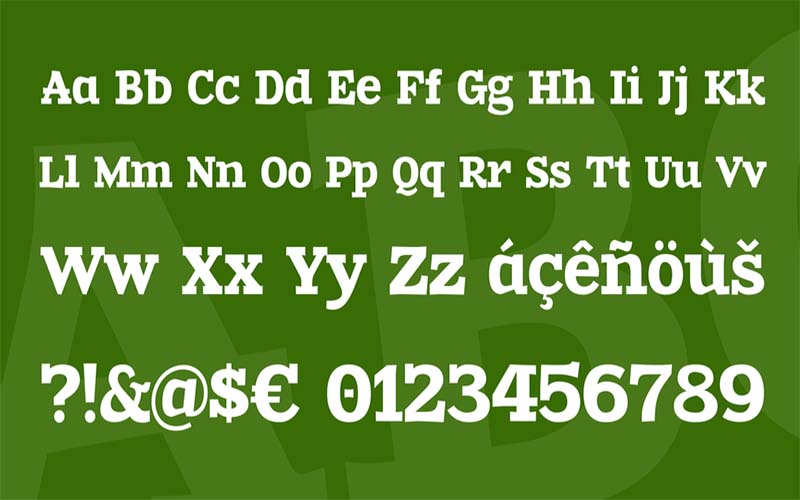
Zantroke Font is a basic slab serif display typeface. This excellent quality typeface has gained immense popularity at any given time just because of its versatile appearance and unique features.
That was designed and shared by Gluk Fonts. This remarkable font family comes in a single regular weight. It contains 667 English characters with lowercase and 143 with more than glyphs.
This is an amazing typeface that is of a shared nature that looks amazing in a wide range of uses. It works especially well in displays and long text paragraphs.
To get a better idea of the structure of the Zantroke font, let’s take a look at the character map images here. With its attractive punctuation marks, it is an ideal typeface for incoming fonts.
Zantroke Font
You can use this typeface for many operations. Such as it can use in the brand logo, brochure layout, posters, and official card designs. Printing on T-shirts, book covers display, movie posters, headers, and many more.